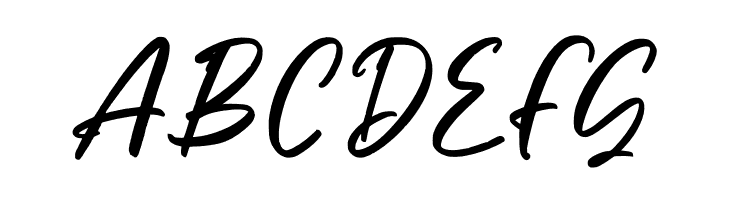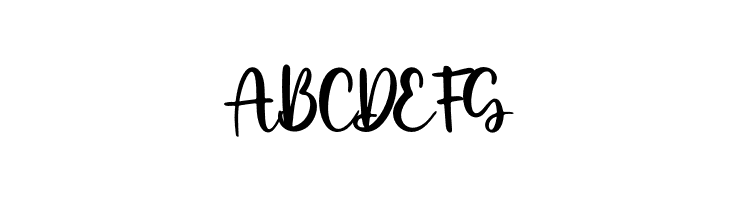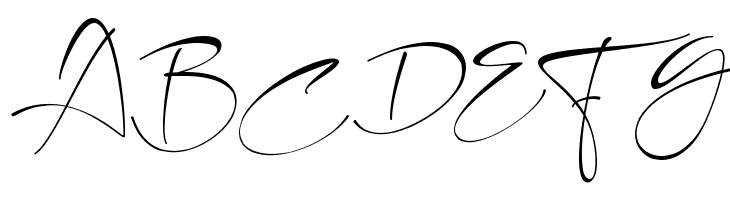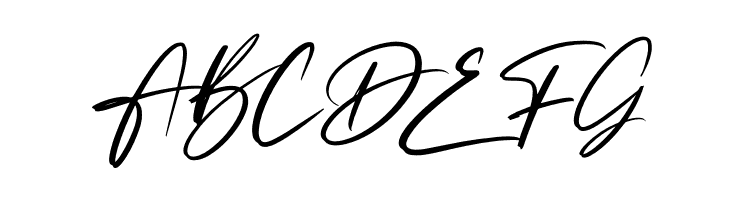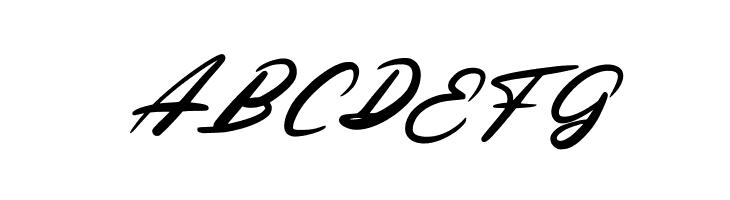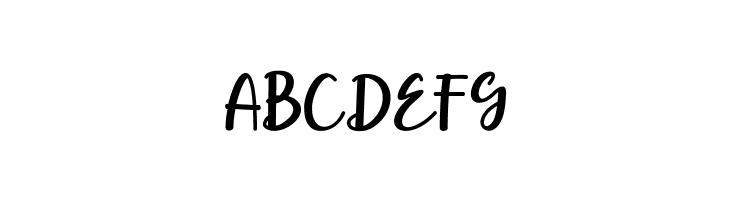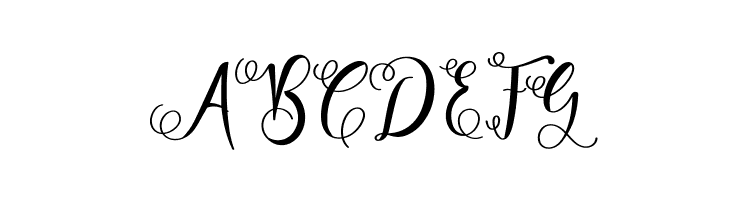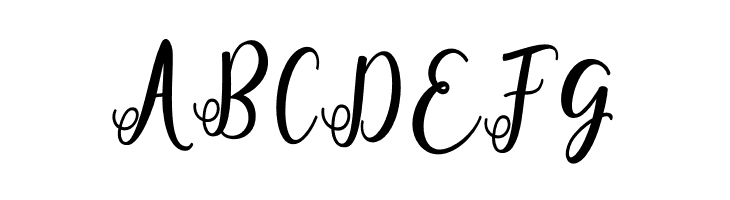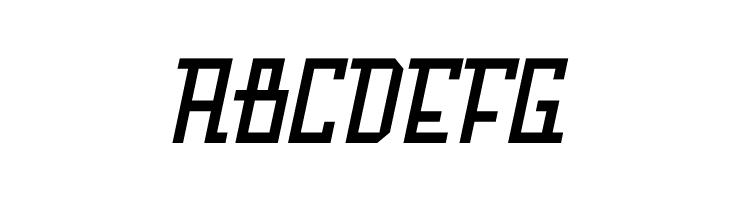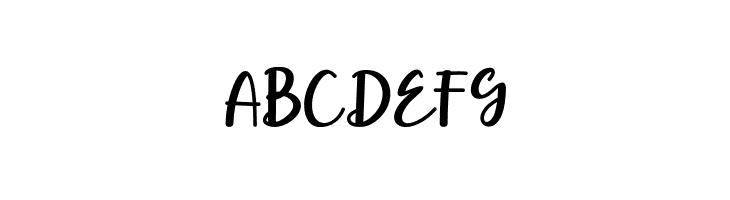
A dynamic and fluid script font with elegant, flowing letterforms.
A modern, angular font with a geometric and dynamic style.
A playful, elegant script font with a handwritten style.
A lively and flowing script font with elegant, playful characteristics.
A dynamic and playful script font with a handwritten style.
A dynamic and elegant script font with fluid, connected letterforms.
A bold, handwritten font with a dynamic and expressive style.
A dynamic, cursive font with fluid, connected strokes and a modern, artistic style.
An elegant script font with decorative swirls and a sophisticated style.
A whimsical script font with decorative swirls and loops.